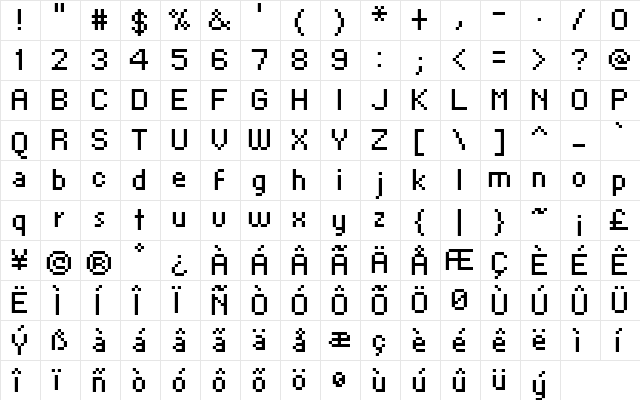
FFF Urban Extended Regular
Design Context for FFF Urban Extended Typeface
FFF Urban Extended is a composed and adaptable typeface that performs quietly and consistently across a wide range of design contexts.